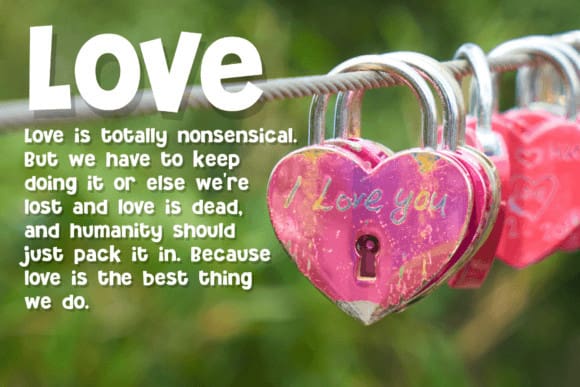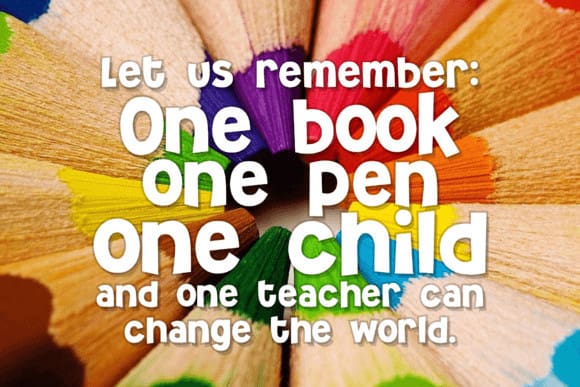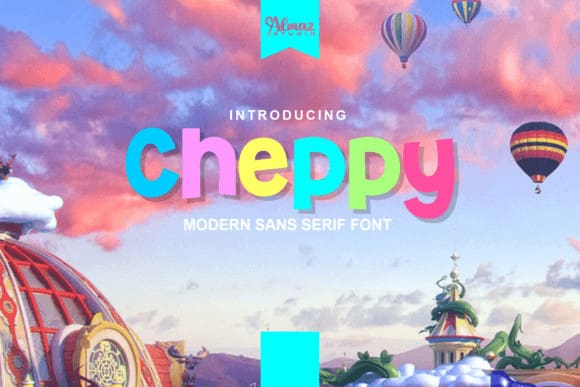
Cheppy Playful Font
Cheppy Playful Font is a childish and modern display font, perfect for any children-related projects. This Font contains modern, elegant, creative, professional, and unique characters, perfect for any minimalistic but fancy design concept.
Cheppy Playful Font has clean lines and sharp edges, making it a stellar option for branding and web use. Cheppy will be the perfect addition to your font collection!